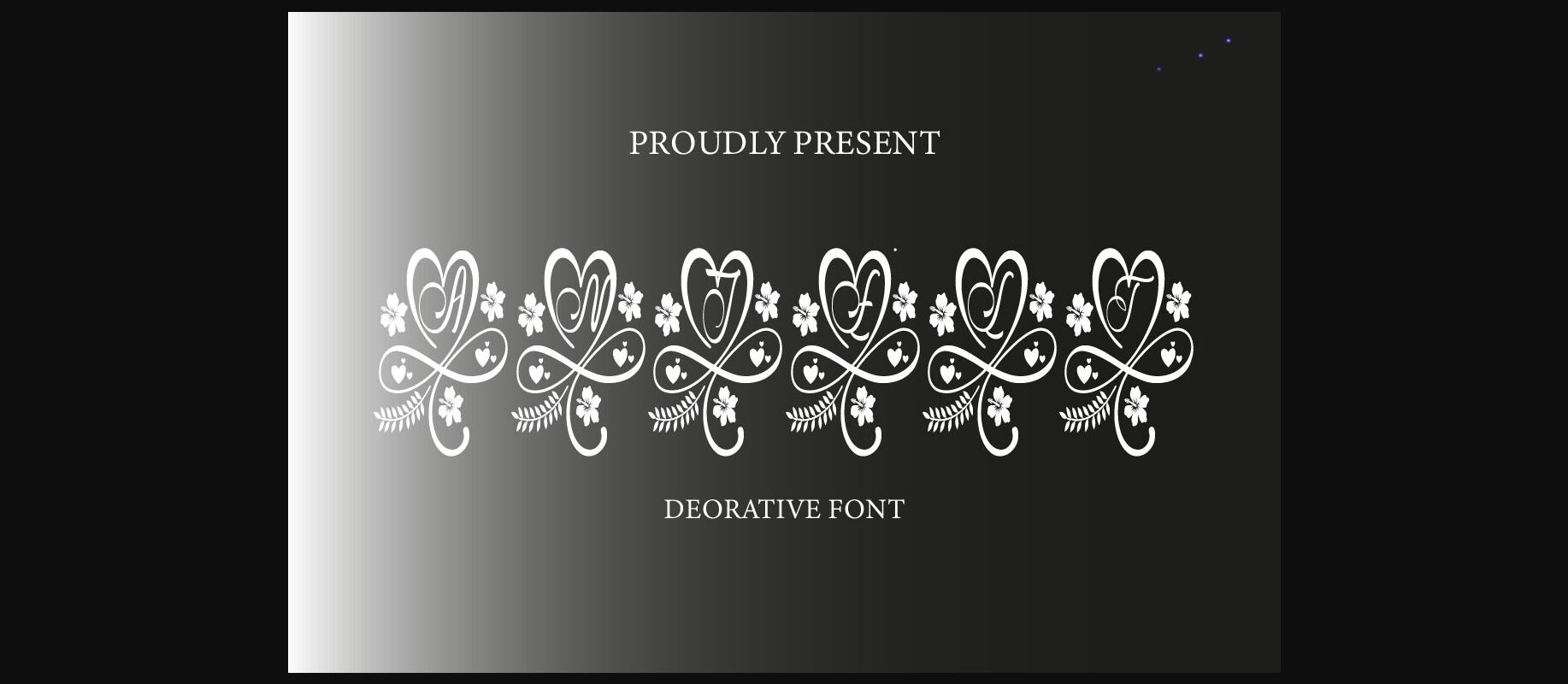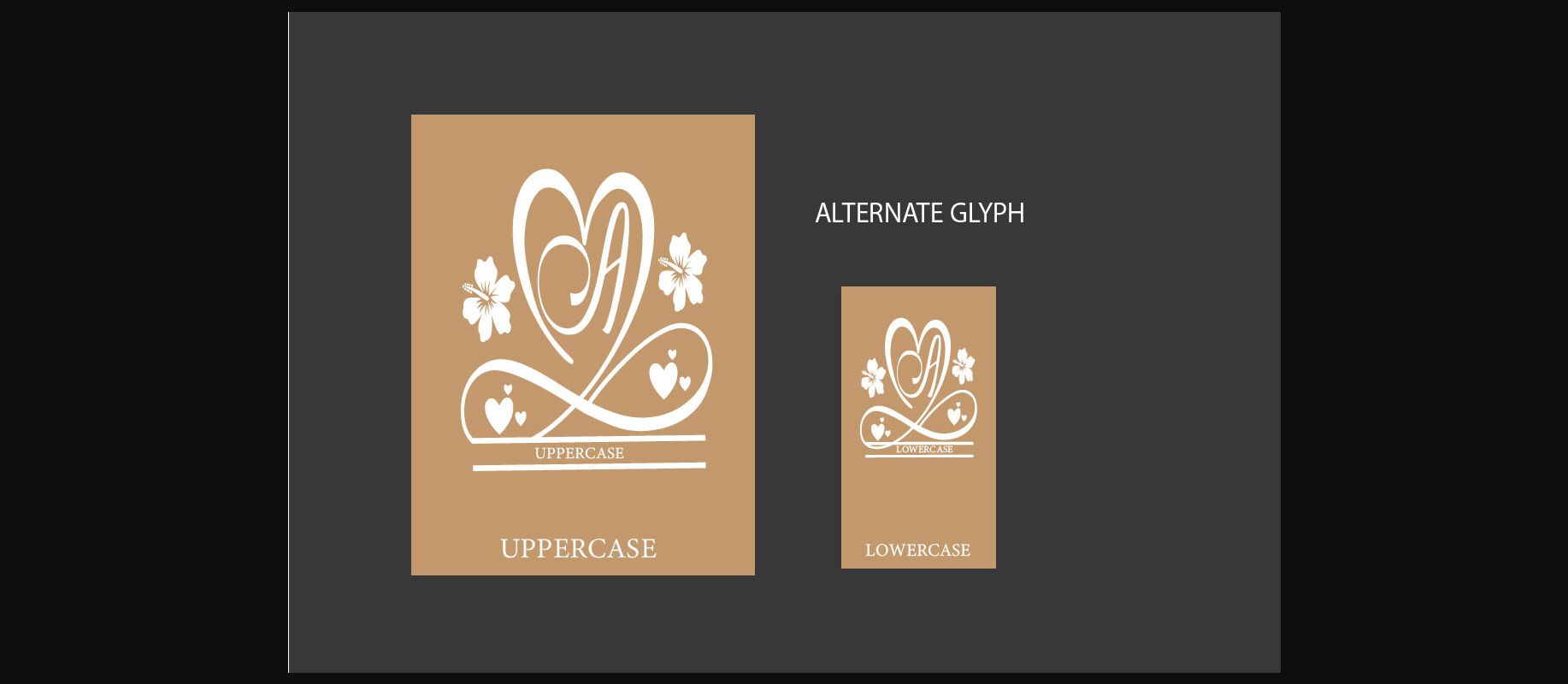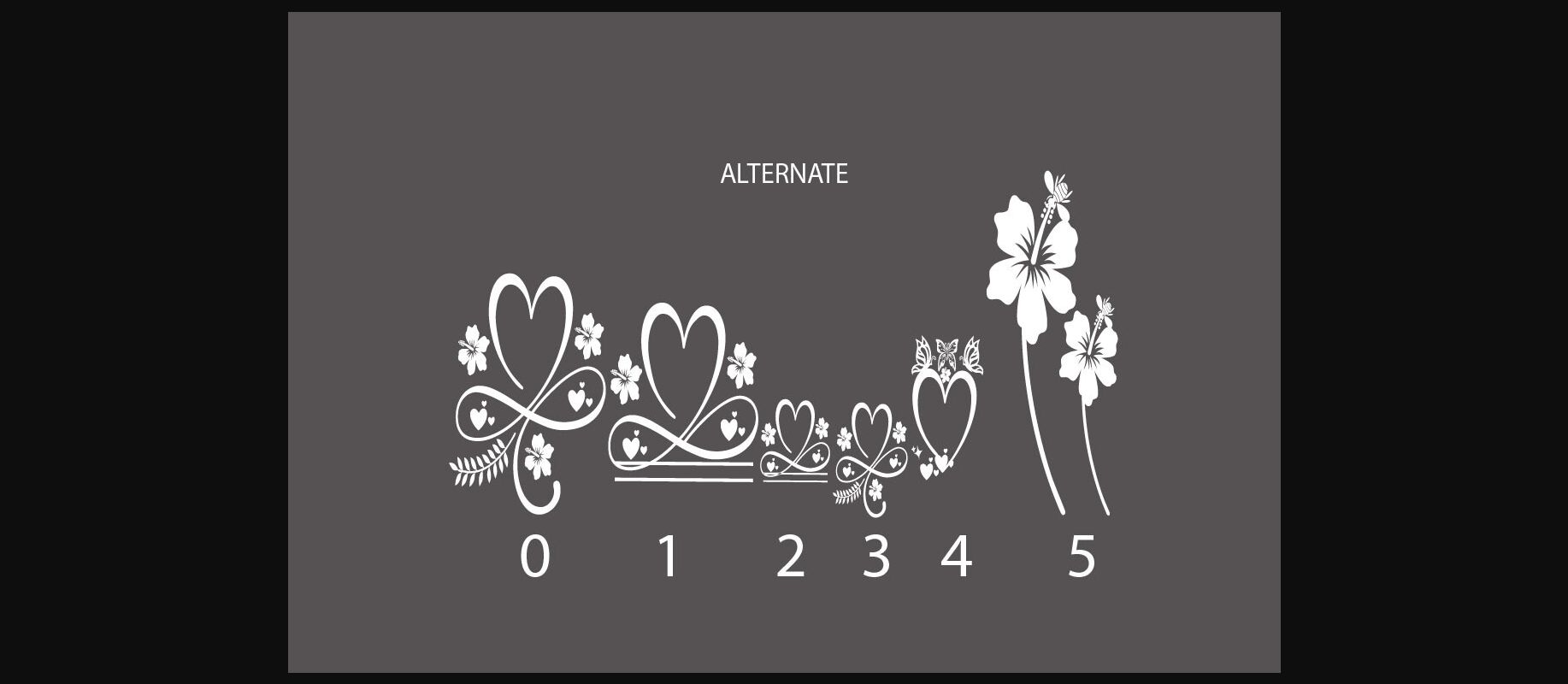
About Anjely Font
Introduction Anjely, an elegant decorative monogram font, featuring lovely and incredibly detailed ornaments. Fall in love with its authentic feel and use it to create gorgeous wedding invitations, beautiful stationary art, eye-catching social media posts, and cute greeting cards.